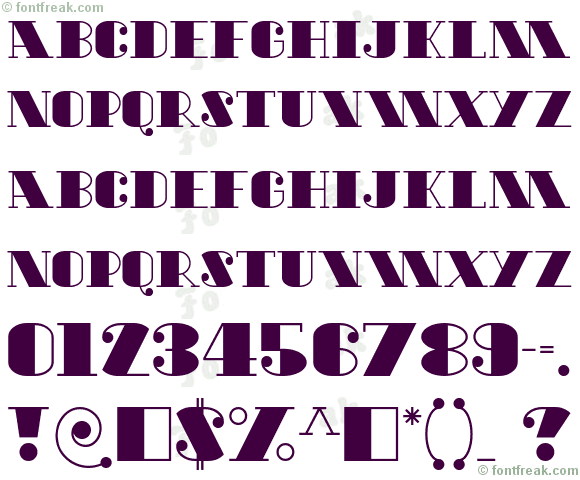
Silver Falcon
About Silver Falcon
Silver Falcon by GGBot is a striking display font that captures attention with its unique character. This font falls into the decorative category, making it perfect for creative projects that demand a bit more flair. With a bold stroke weight and moderate contrast, Silver Falcon showcases a clean yet impactful appearance. The spacing between letters is thoughtfully designed, allowing for easy readability while maintaining its artistic essence. The font features distinctive decorative elements that enhance its visual appeal, giving it a modern yet timeless feel.
Ideal for a variety of applications, Silver Falcon is particularly suited for wedding invitations, where its elegance can set a romantic tone. It also works beautifully for movie posters, capturing the excitement and intrigue of cinematic themes. Restaurant menus can benefit from its stylish presentation, making dishes appear more enticing. Additionally, this font is a fantastic choice for branding materials, allowing small business owners to create memorable logos that reflect their unique identity. Content creators will appreciate its versatility for social media graphics, ensuring that their posts stand out in crowded feeds.
What sets Silver Falcon apart is its blend of modern design with classic elements, making it both versatile and timeless. Whether used for formal or casual projects, this font brings a touch of sophistication and creativity, ensuring that your designs leave a lasting impression.